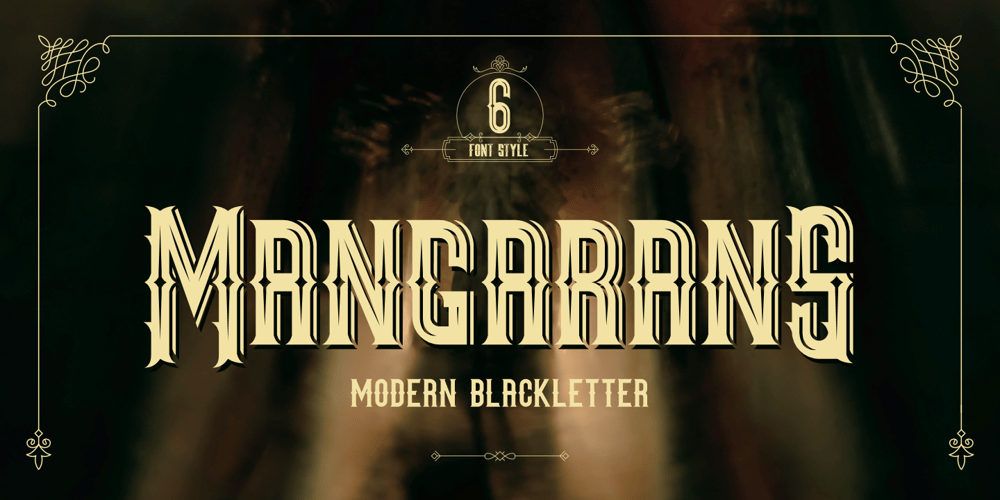
Mangarans Font Family was designed by Raditya Putra Pratama and published by Raditya Type. Mangarans contains 6 styles and family package options. Mangarans is a Modern Victorian Blackletter, which is combining modern and classic typography. It has a vintage feel, and as a result, it matches a wide variety of designs.Get inspired by its retro feel.